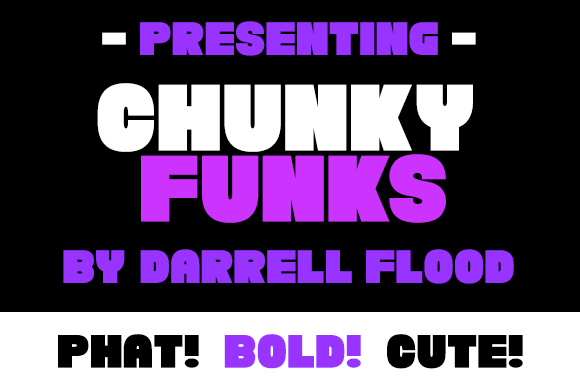
Chunky Funks: A High-Impact Retro Slab Serif Font
Chunky Funks is a striking slab serif font that combines bold design with retro-inspired curves. This typeface offers designers a powerful tool for creating impactful typography that demands attention and adds a nostalgic flair to various design projects.
Key Features of Chunky Funks
- Ultrabold Design: Features an extremely thick and heavy weight for maximum visual impact
- Retro Style Curves: Incorporates curved elements that evoke a vintage aesthetic
- High Impact: Designed to add “oomph” and grab attention in designs
- Slab Serif Structure: Maintains the characteristic thick, rectangular serifs typical of slab serif fonts
- Versatile Application: Suitable for various design projects requiring a bold, retro touch
Ideal Uses for Chunky Funks
Chunky Funks’ unique characteristics make it particularly well-suited for:
- Eye-catching headlines and titles
- Retro-inspired branding and logo design
- Poster and advertisement layouts
- Album covers and music-related designs
- Vintage-style product packaging
Comparison with Other Slab Serif Fonts
While Chunky Funks shares characteristics with other bold slab serifs like Tecnica Slab Family, its ultrabold weight and retro curves set it apart. Unlike more traditional slab serifs such as Osgood Slab, Chunky Funks offers a more exaggerated and playful approach to typography.
When incorporating Chunky Funks into your designs, consider the following tips:
- Use for short phrases or single words to maximize its bold impact
- Pair with simpler, lighter weight fonts for body text to create contrast
- Experiment with different sizes to create hierarchy while maintaining readability
- Consider using it in projects where you want to evoke a sense of nostalgia or retro cool
Chunky Funks is an excellent choice for designers looking to add a high-impact, retro-inspired slab serif to their typographic toolkit. Its ultrabold design and curved elements make it stand out in the world of typography. Whether you’re working on logo designs, creating eye-catching poster designs, or developing branding for vintage-themed projects, Chunky Funks offers the perfect blend of boldness and retro charm.
Explore how Chunky Funks can bring a powerful, nostalgic edge to your design projects. From striking headlines to retro-cool branding elements, this font provides the tools to create impactful and memorable typography that stands out with its unique blend of thickness and curvaceous style.